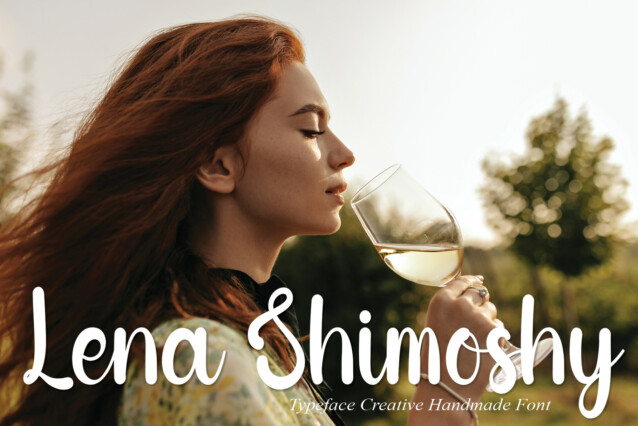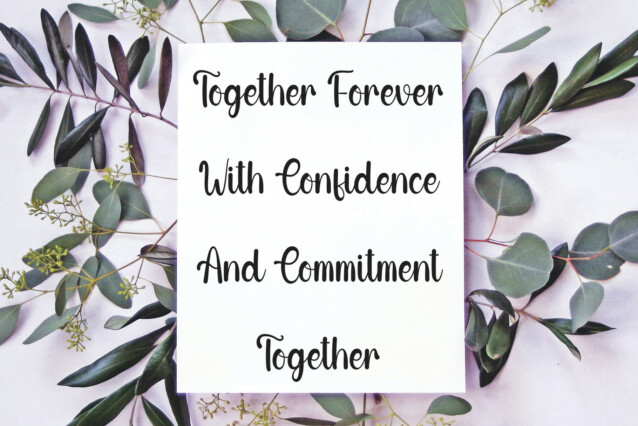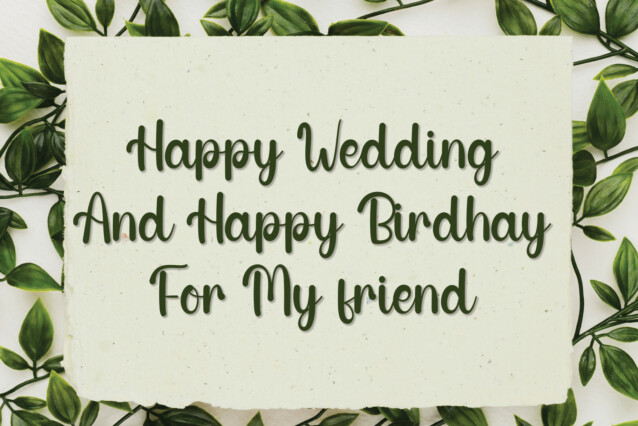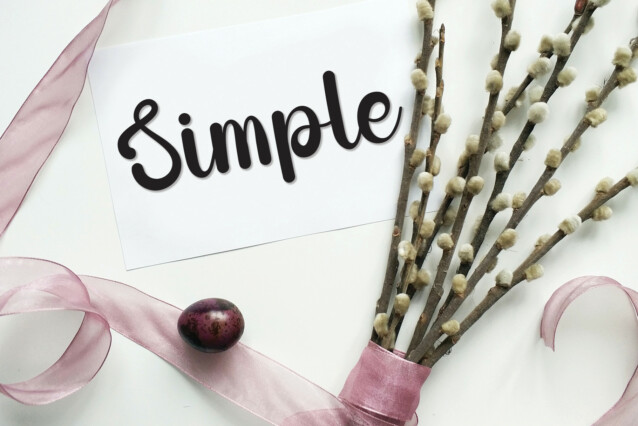
Now Simple Script Font
Now Simple Script Font is a lovely handwritten font. Its stylish letters are perfect for wall displays, wedding invitations, social media post logos, advertisements, product packaging, product designs, labels, photography, watermarks, invitations, stationery, and any project that requires taste handwriting.